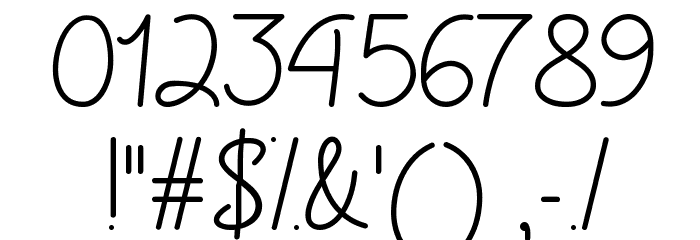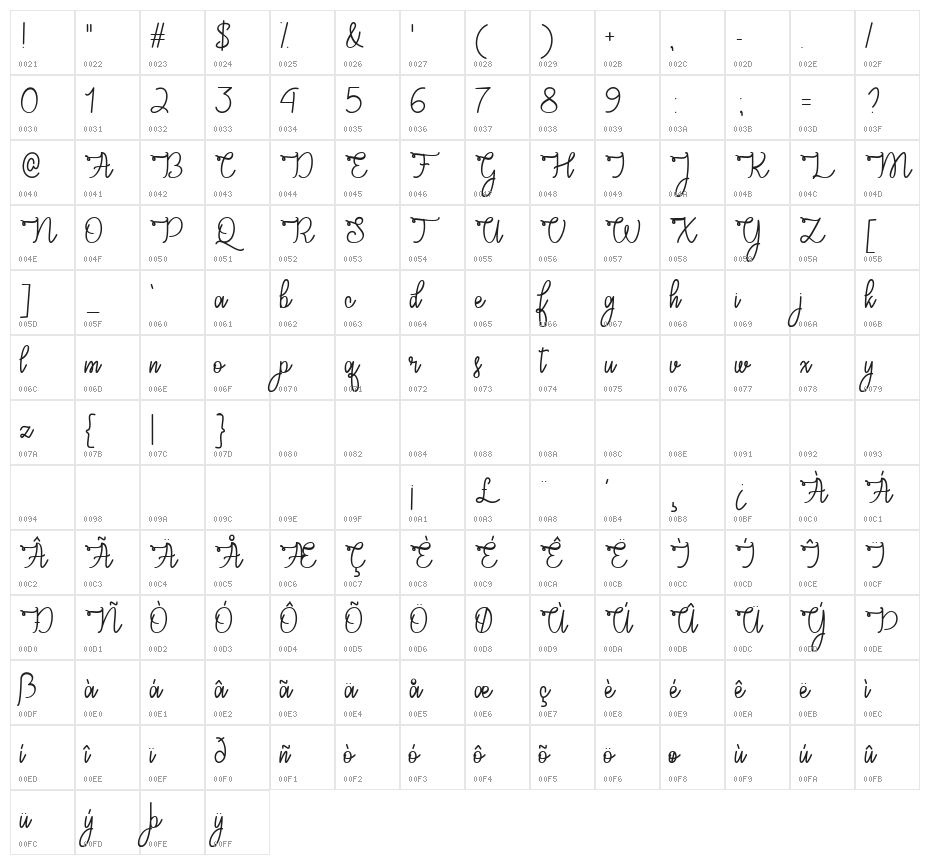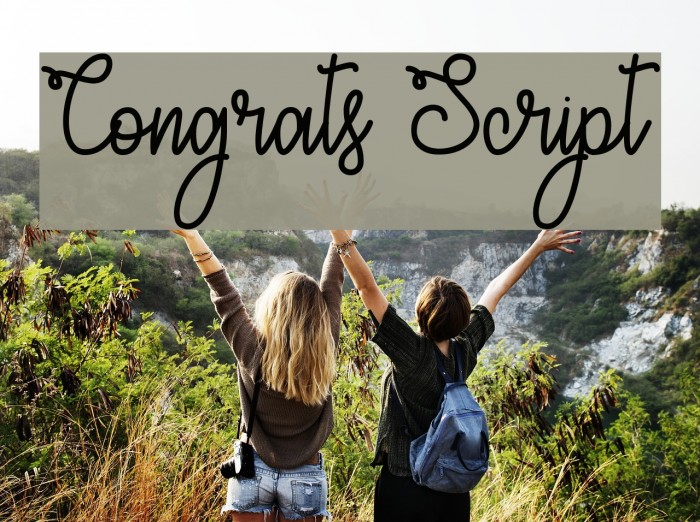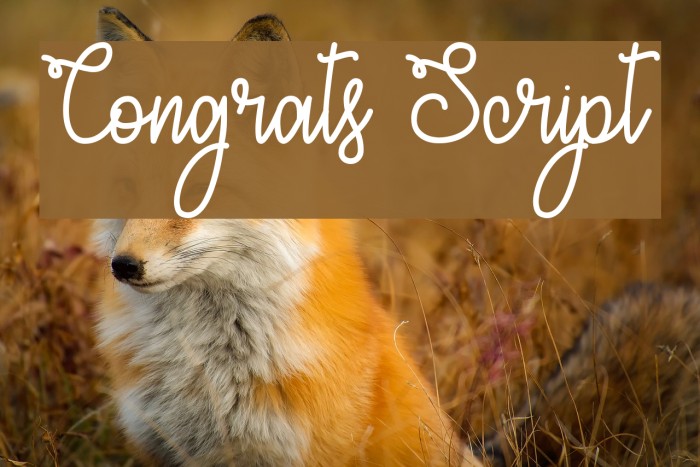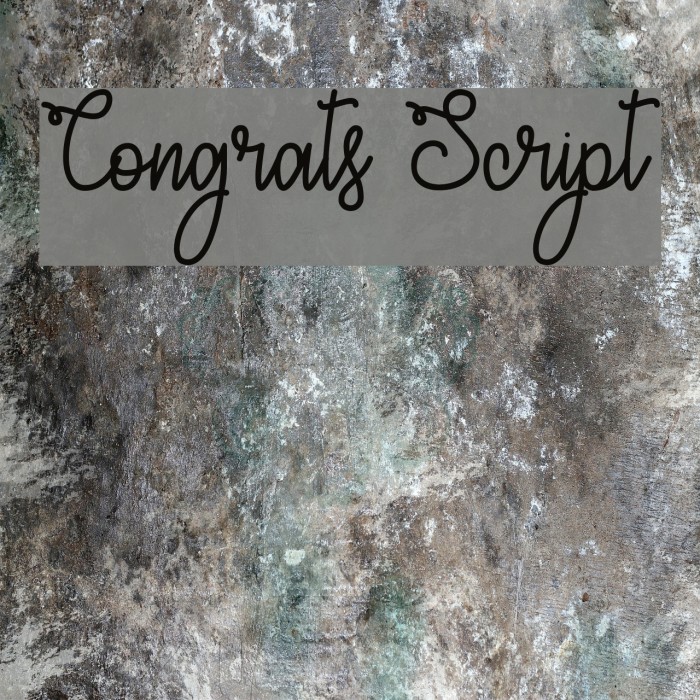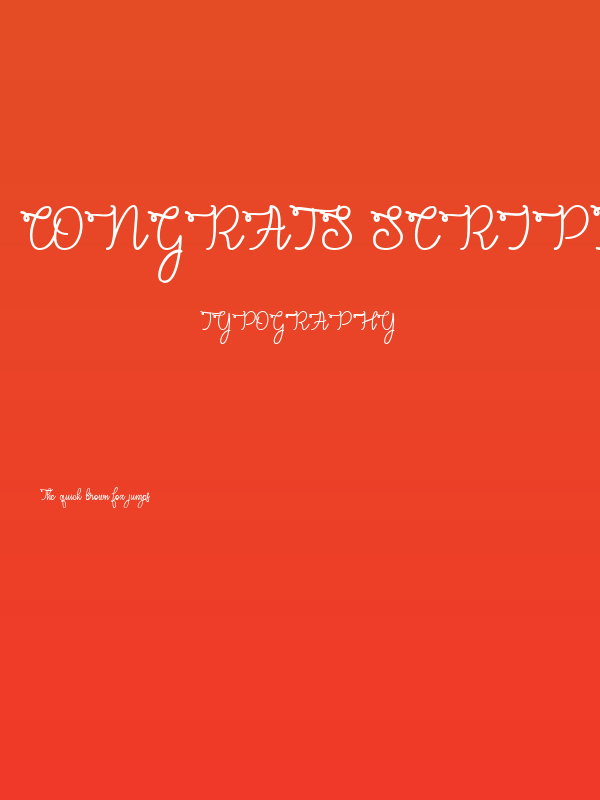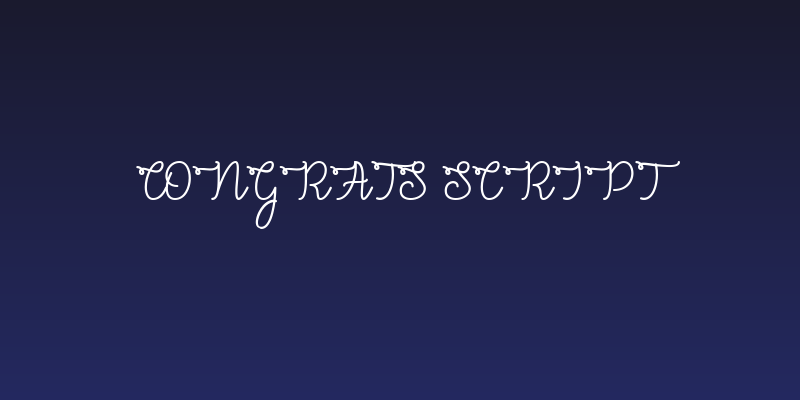
Congrats Script Font
Congrats Script Description
This elegant script font features a playful and decorative style, characterized by its flowing, cursive letters adorned with small loops and flourishes. The uppercase letters are particularly ornate, with each character displaying unique embellishments that add a whimsical touch. The lowercase letters maintain a consistent, smooth flow, enhancing readability while retaining the font's artistic flair. The numerals are clear and distinct, complementing the overall design. Special characters are thoughtfully integrated, ensuring versatility in various design contexts. This font's charm lies in its ability to convey a sense of celebration and joy, making it ideal for creative projects.
| Use Case | Headlines, Invitations, Greeting Cards |
| Proposed Projects | Ideal for wedding invitations, greeting cards, event posters, and branding materials that require a touch of elegance and playfulness. |